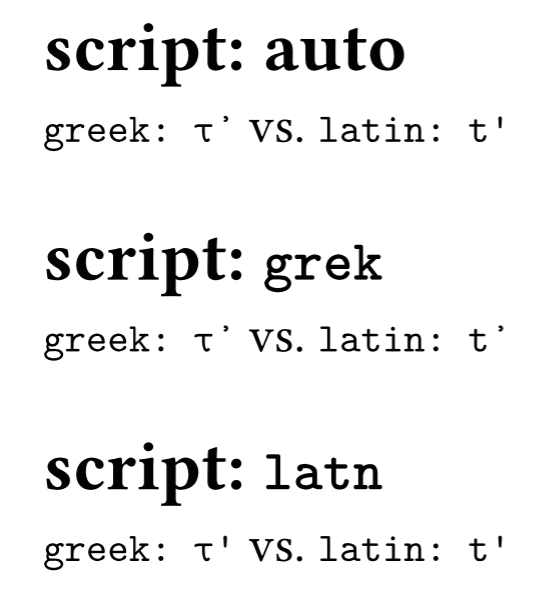
As is shown in the image and the share link project, in raw blocks, if a single quote (') appears after a Greek letter, it renders differently. This reproduces on the Web application and on my Linux desktop. Disabling ligatures with
#show raw: text.with(font: "New Computer Modern Mono", ligatures: false, features: (liga: 0, dlig: 0, calt: 0))
does not change this behavior. Any clue?
Weirdly, this does not reproduce on my Windows PC (via VSCode typst extension, in both preview and PDF generation), even if I don’t disable ligatures explicitly.
#show raw: set text(font: "New Computer Modern Mono")
= script: auto // Guess the script from the surrounding characters
`greek: τ'` vs. `latin: t'`
= script: `grek`
#show raw: set text(script: "grek")
`greek: τ'` vs. `latin: t'`
= script: `latn`
#show raw: set text(script: "latn")
`greek: τ'` vs. `latin: t'`
I see the reason behind the design:
For Greek texts, the font maps ' (the quotesingle glyph) to ᾽ U+1FBD Greek Script GREEK KORONIS (the uni1FBD glyph).
#set text(font: "New Computer Modern Mono")
#"greek: τ'(\u{1fbd})" vs. #"latin: t'(\u{1fbd})"